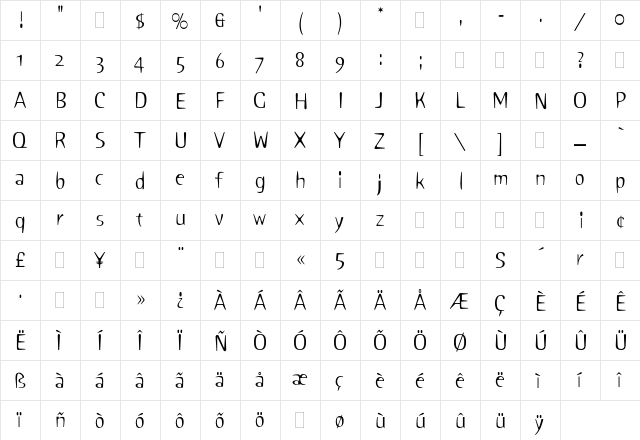
Pink Plain
Design Context for Pink Typeface
Pink takes a measured approach to typography — its balanced proportions and neutral character make it a reliable workhorse for both digital and print work.
Pro Tip: Use Pink in both headline and body roles to test its range before committing to a single application.